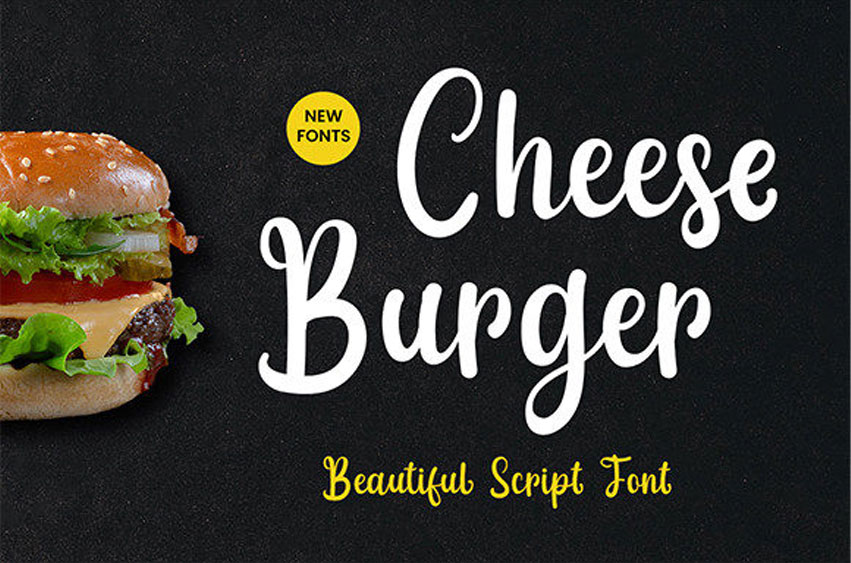
Cheese Burger Font
Cheese Burger Font is a delicate, elegant, and flowing handwritten font. it has beautiful and well-balanced characters and as a result, it matches a wide pool of designs.
This font is suitable for use on branding, headings, wedding design, signatures, quotes, birthday cards, watermarks, invitations, labels, and much more!
– Contextual Alternates Features
– Support Multilingual